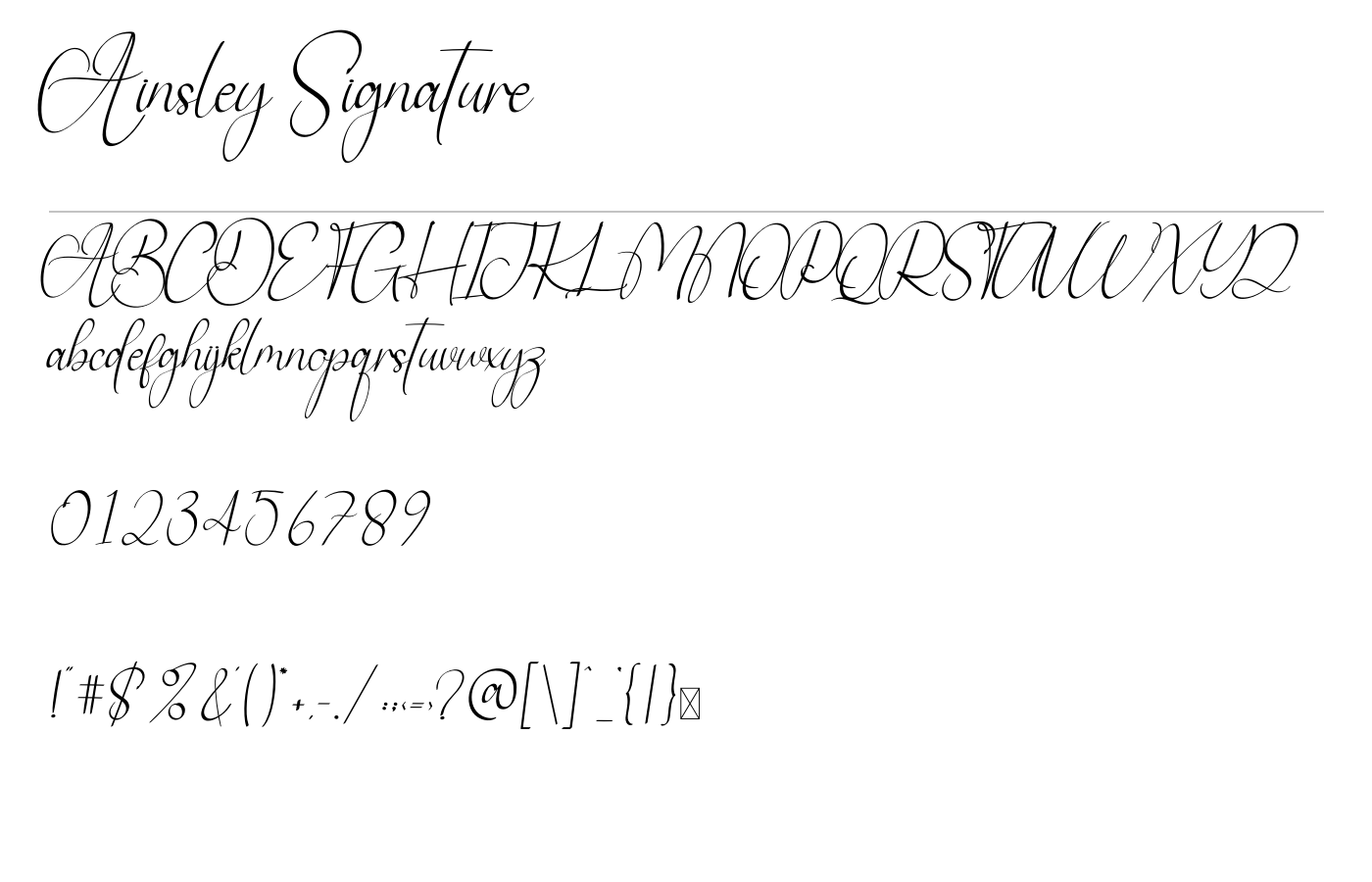
Ainsley Signature Font is a delicate, elegant script with slender, flowing strokes that mimic graceful handwriting, perfect for adding a personal, luxurious touch. Its tall, narrow letterforms and fine contrasts make it ideal for sophisticated branding, wedding invitations, and upscale design projects where a stylish, refined appearance is desired.
Ainsley Signature Font